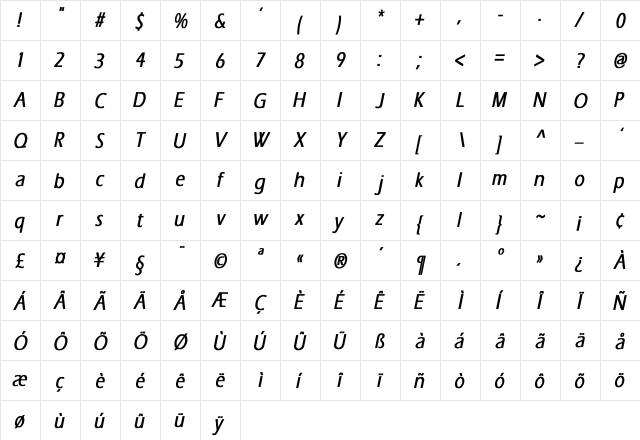
Eras-Medium-Medium Cn BI Bold Italic Font Preview
Eras-Medium-Medium Cn BI Bold Italic
Design Context for Eras-Medium-Medium Cn BI Typeface
Eras-Medium-Medium Cn BI offers clean, dependable letterforms without strong stylistic allegiance, making it a practical choice for designers who need flexibility. Its italic angle brings a sense of urgency and motion to the letterforms. Its bold stroke weight gives it real presence on the page.
Pro Tip: Try Eras-Medium-Medium Cn BI for annotation and caption copy alongside an upright companion — the contrast in angle creates a dynamic but ordered typographic system.